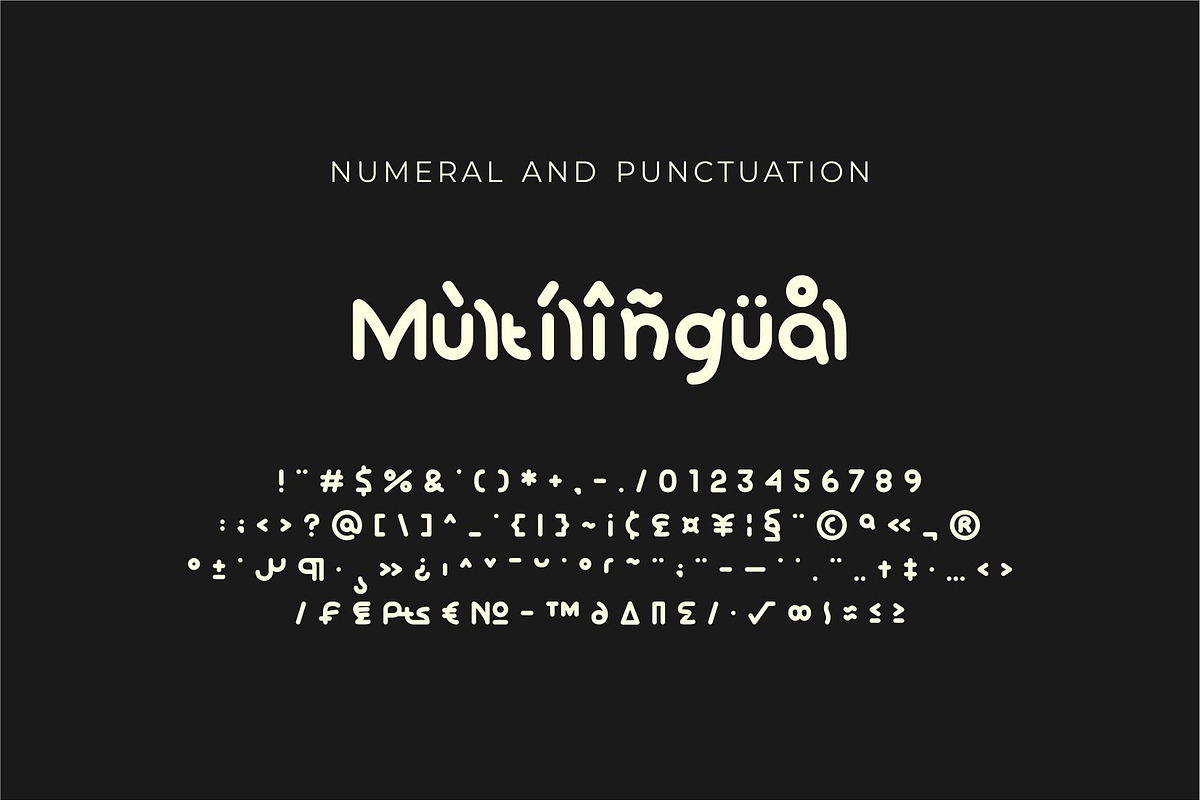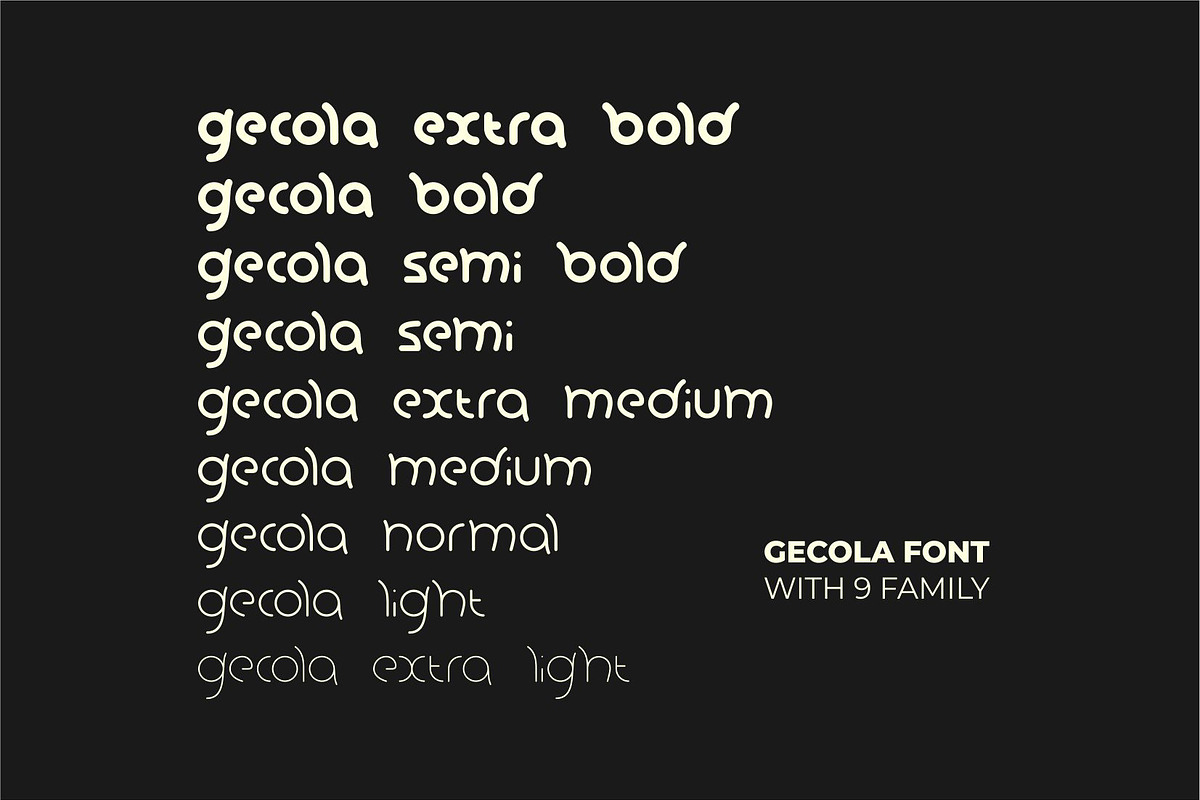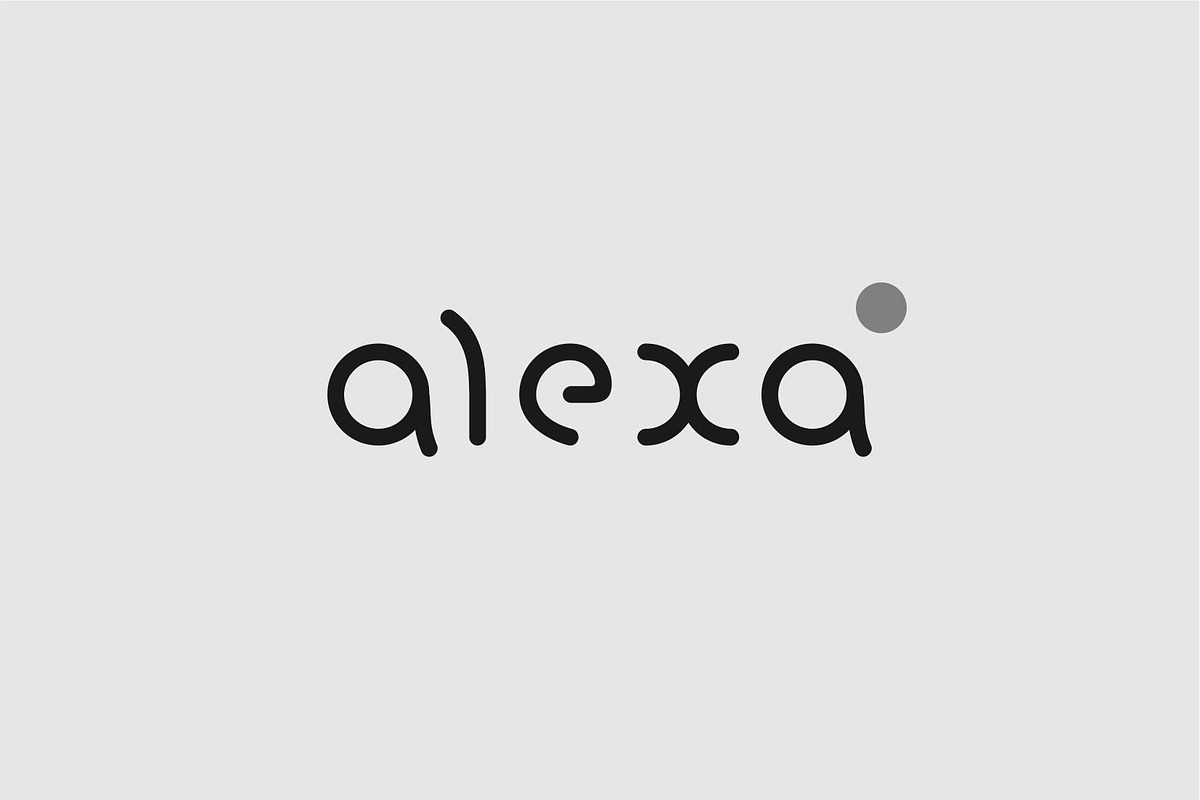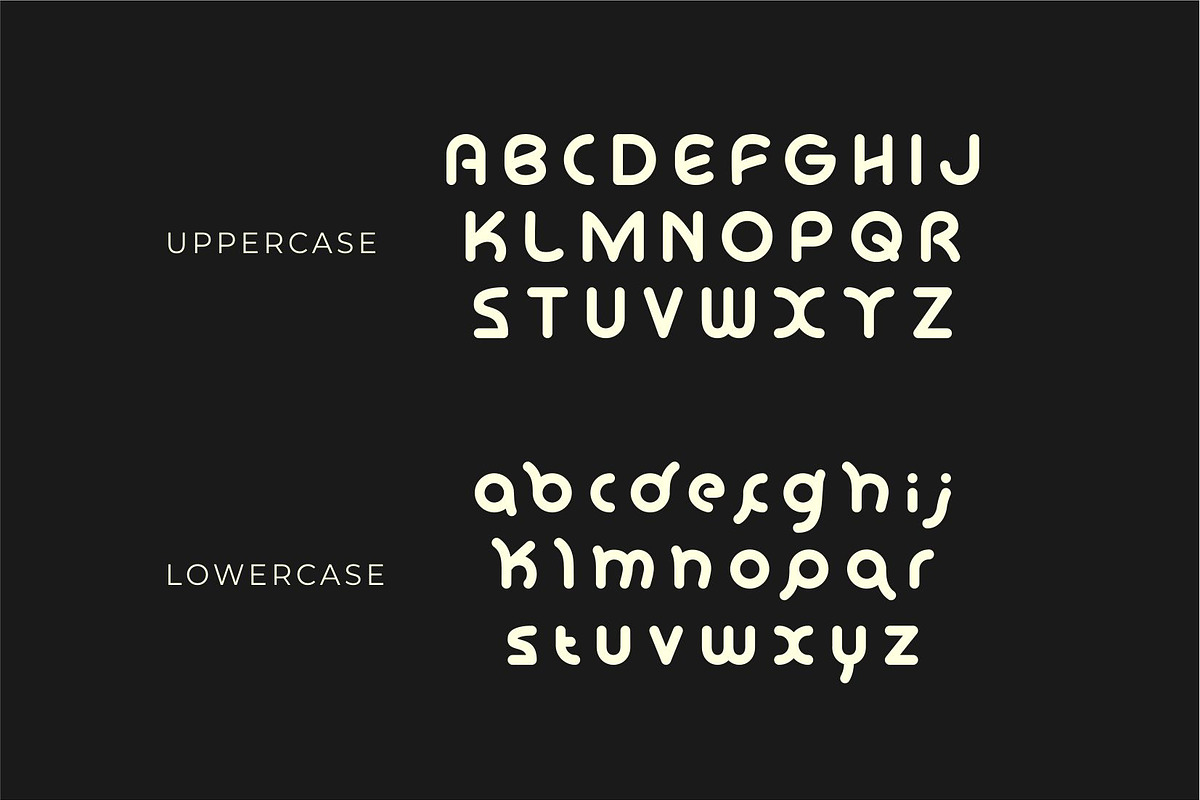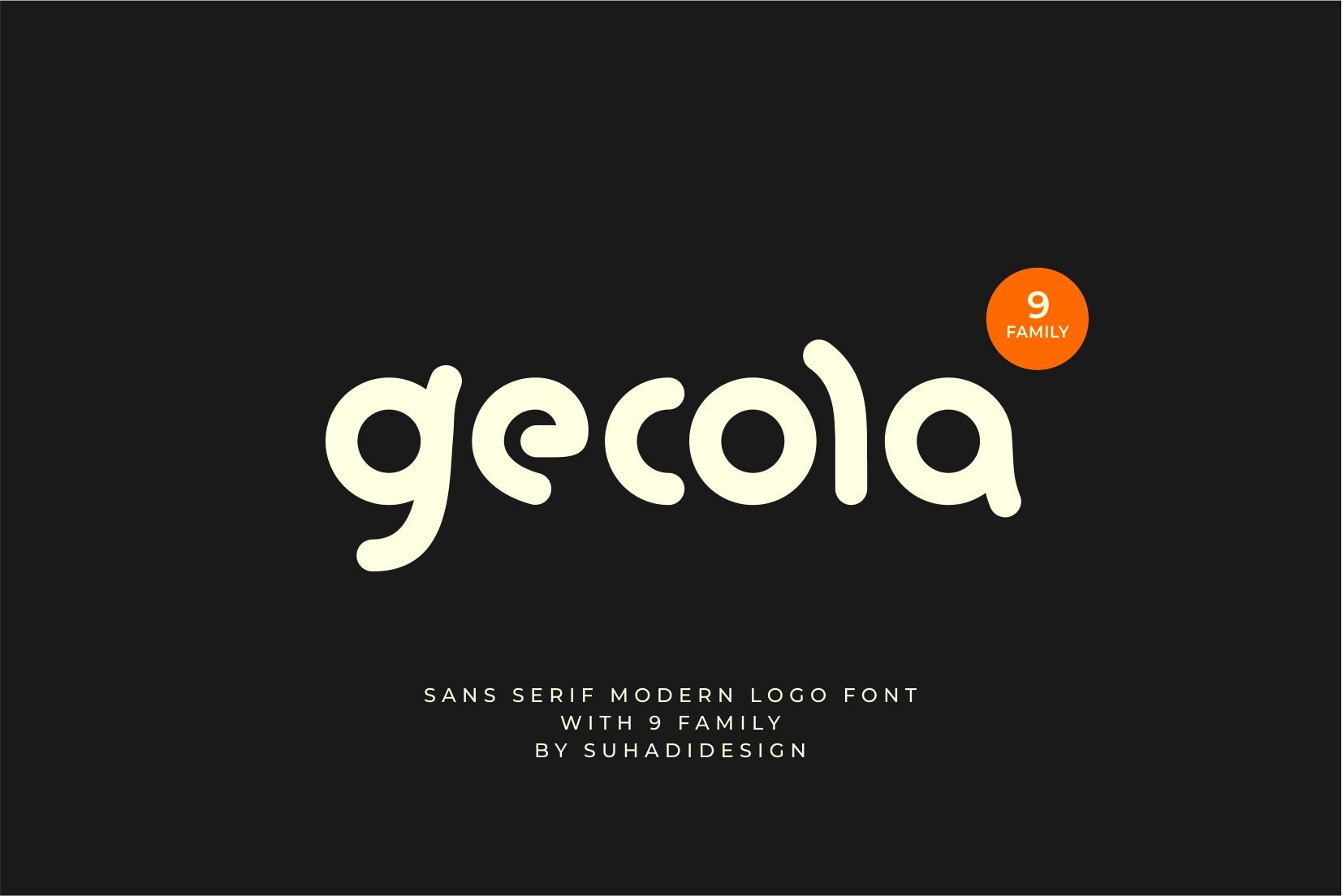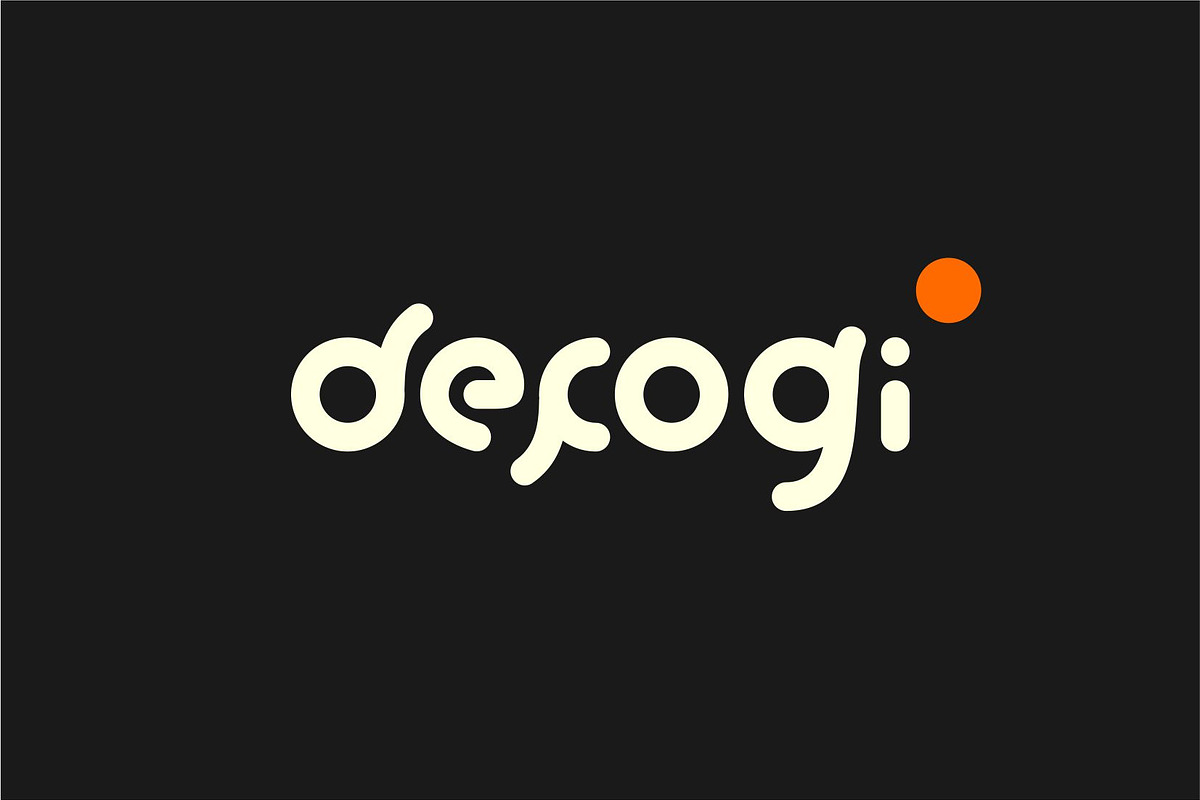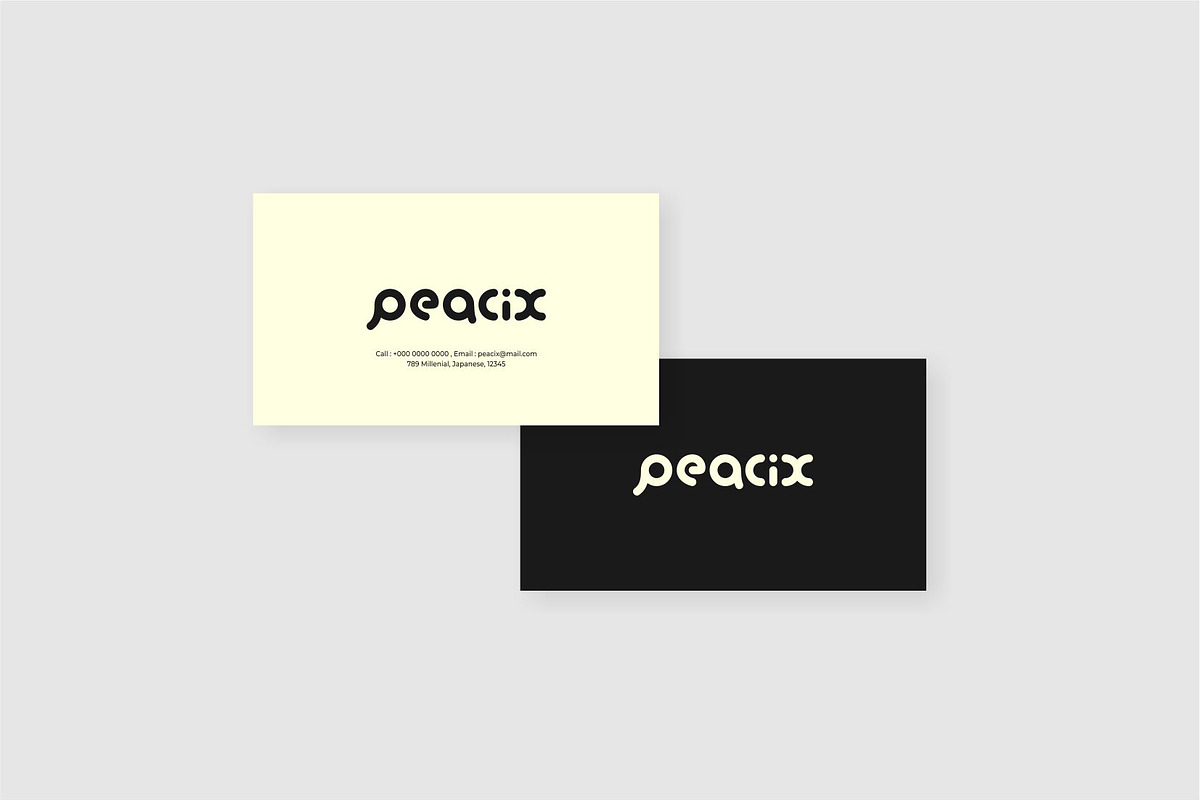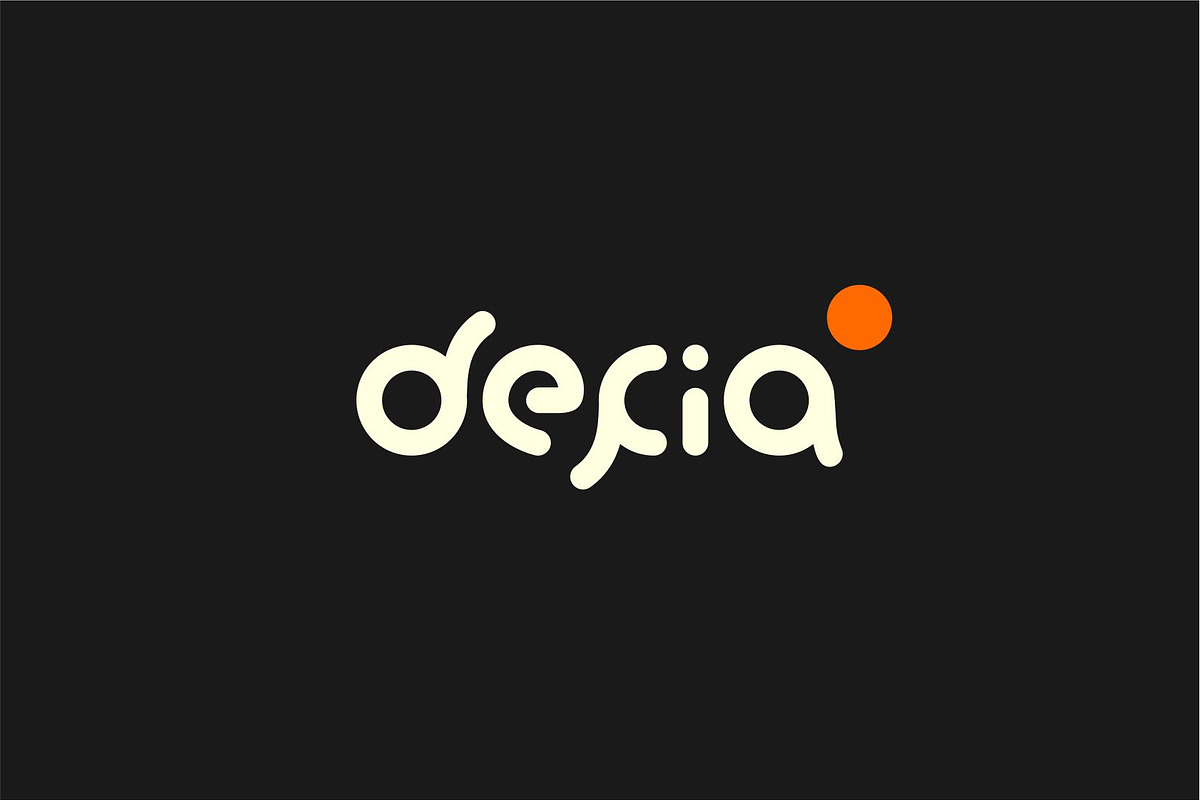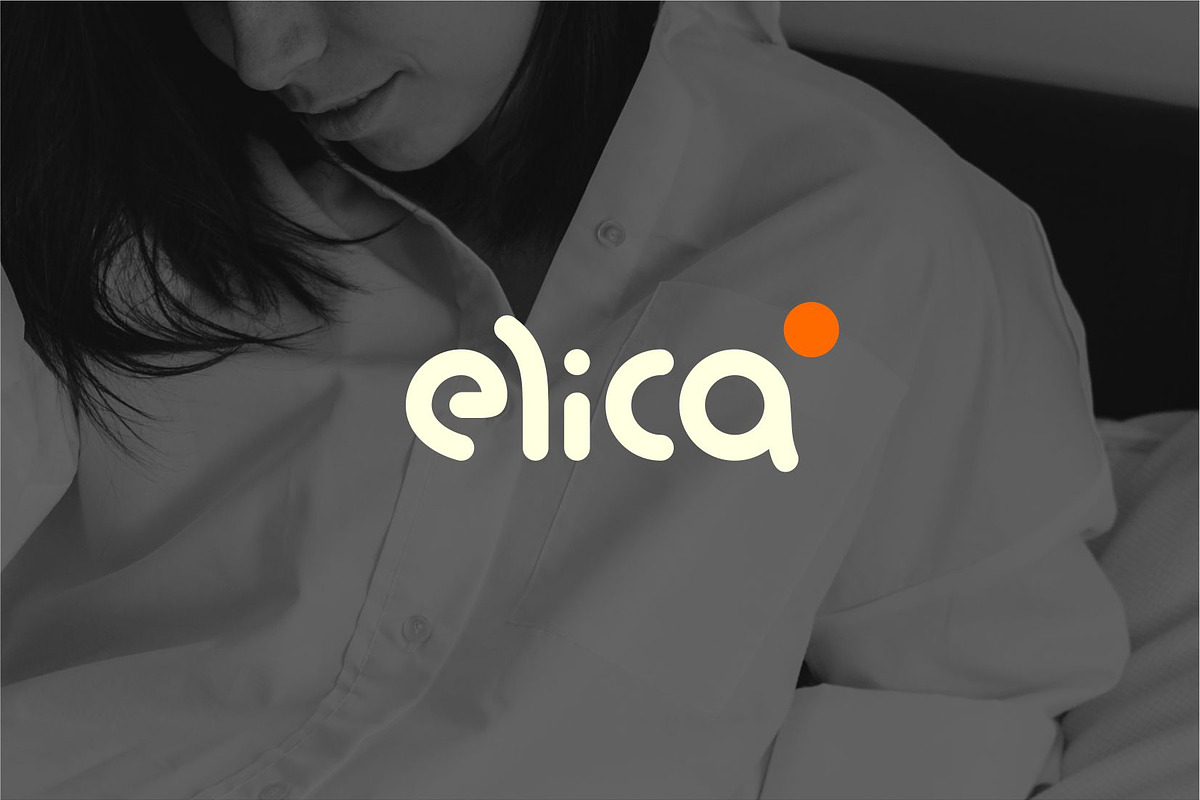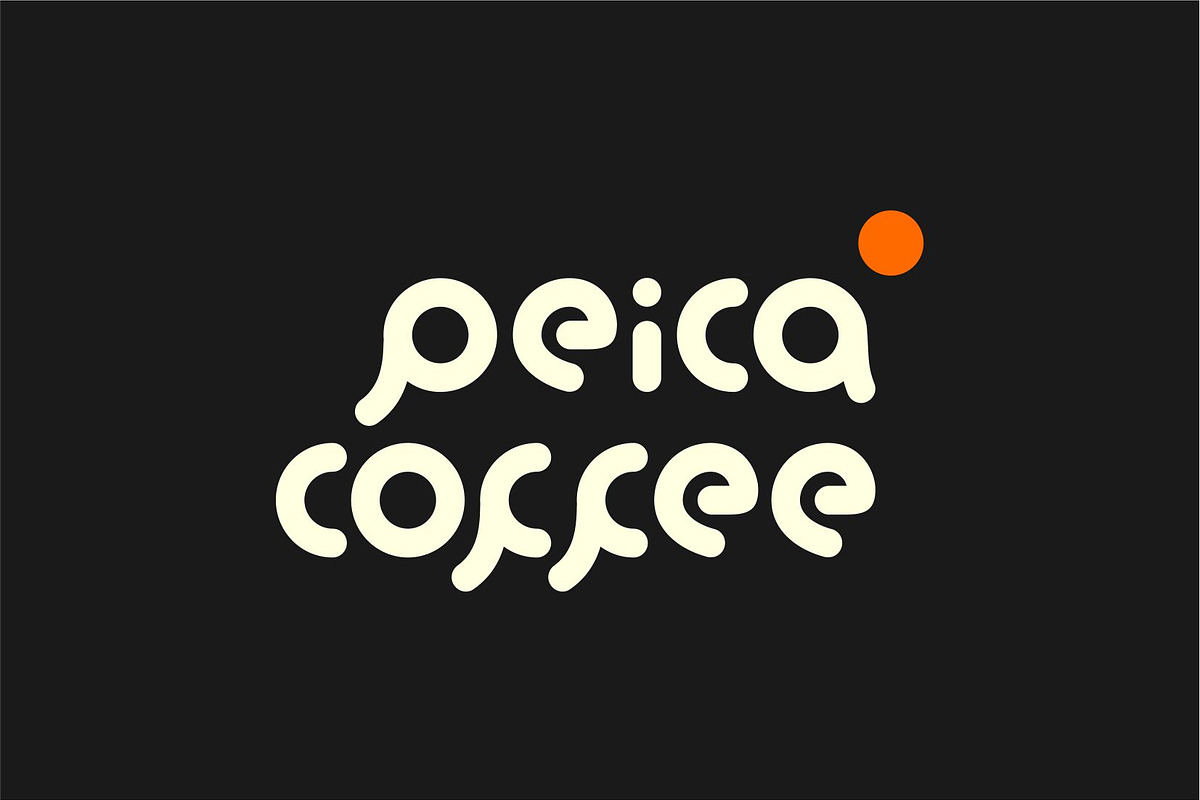
Gecola - Logo Font
Hi, ladies and gentlemen! Following market demand, I created a minimalist sans serif font that's modern, elegant, and cool. Therefore, I decided to create this sans serif font. Gecola is a cool font for millennials and genz, presented with a modern style that's become a market favorite. We've kept this font looking cool, classy, modern, stylish, up-to-date, and easy to use. Gecola is the perfect choice for logos, brands, companies, startups, labels, fashion, branding, brand names, and other projects. Gecola is here to take your designs to the next level.
Gecola font style will make you enjoy designing and utilizing the cool design results of this font. Stay tuned for more font updates :)
• Uppercase Letters • Lowercase Letters • 9 Families • Multilingual Support • Numbers and Punctuation